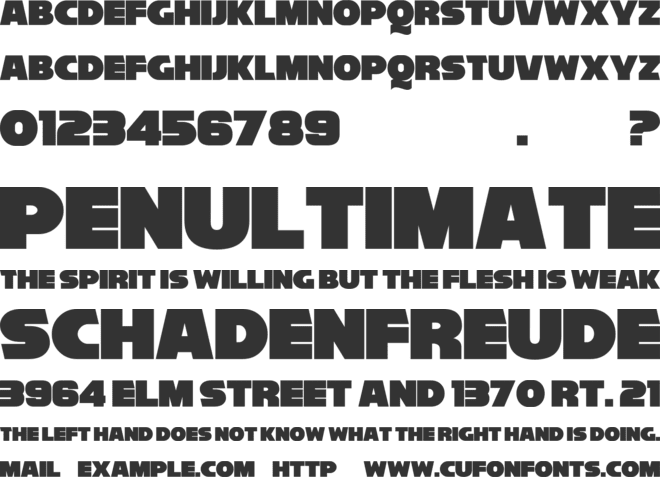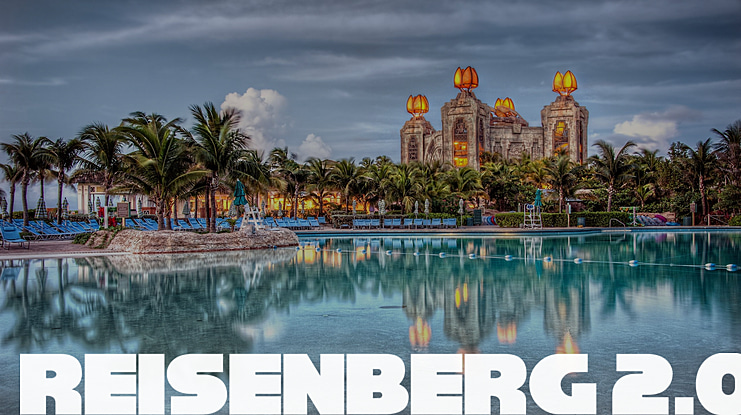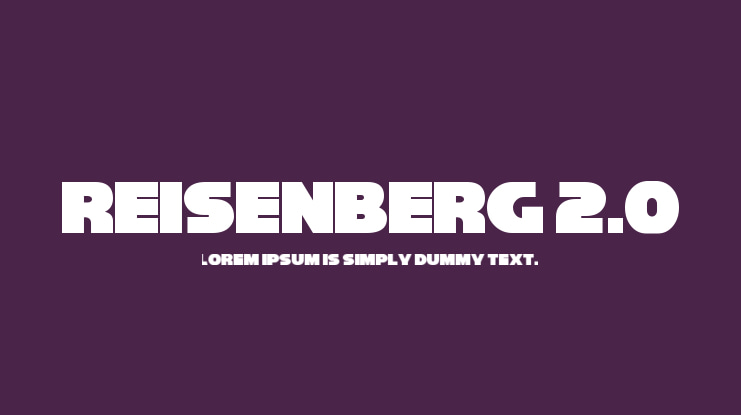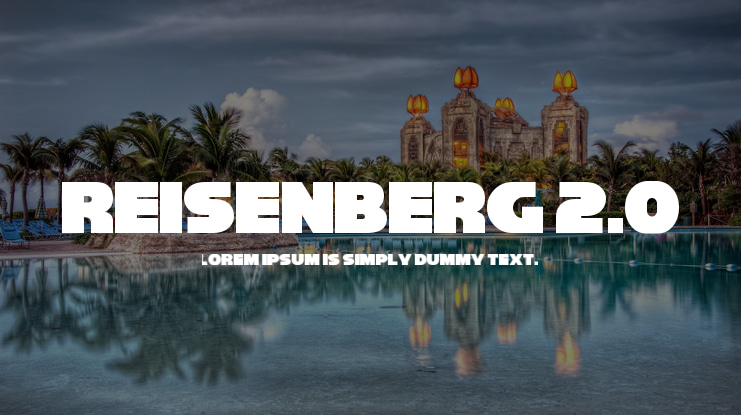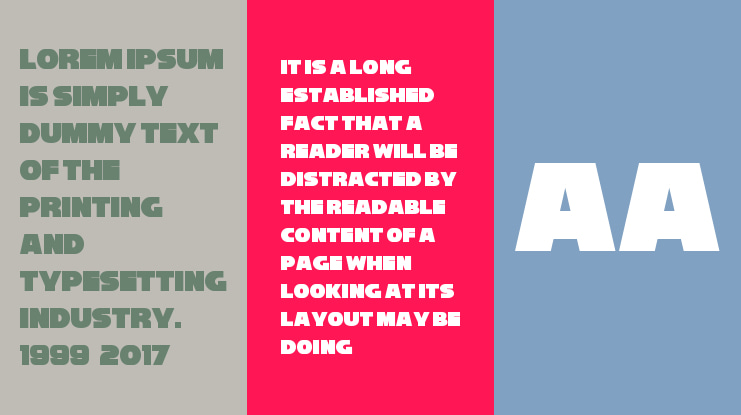
Reisenberg 2.0 Font
Designed by Dennis Ludlow
Take a bite out of negative space with the extra-thick Reisenberg 2.0. This tightly spaced classic gets an update with the 2.0 installment. This family features slightly altered glyphs when compared to the original plus a new Outlines version. The broad, heavy strokes of this all-caps display font will demand attention and dominate real estate on any page. Improvements include class kerning, more European accents, the addition of Cyrillic, and several redrawn characters such as the uppercase M. Use Reisenberg for movie posters, sports logos, or media packaging. Check the glyph map to make sure the characters you need are supported. The demo version includes basic Latin and limited punctuation.